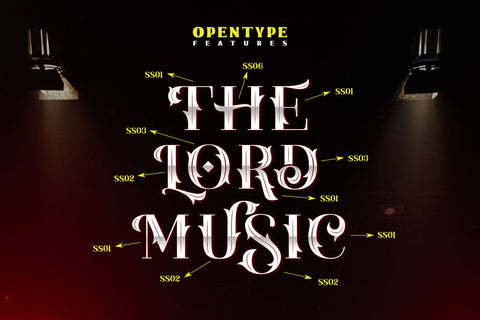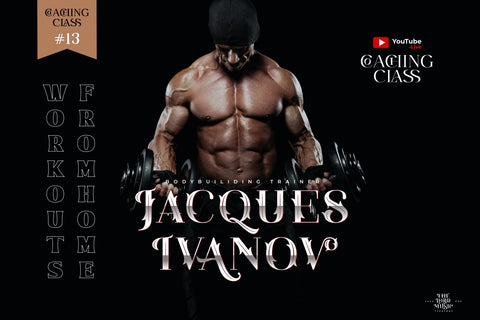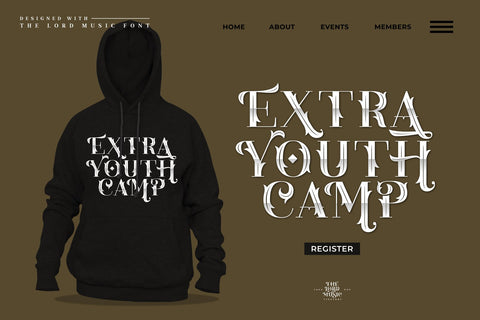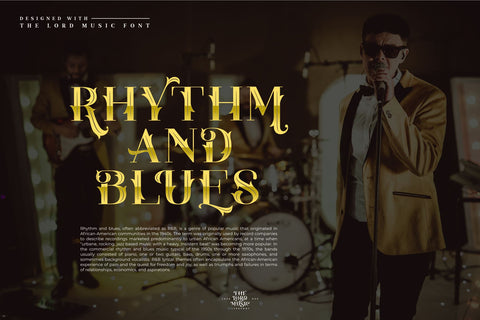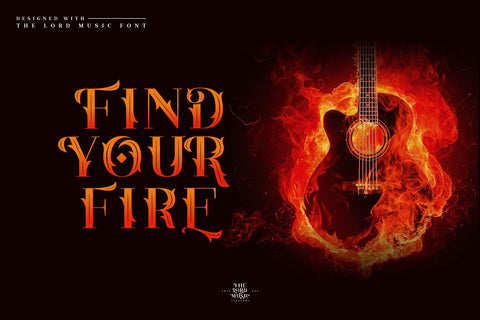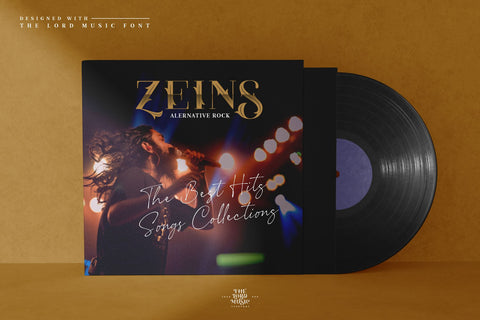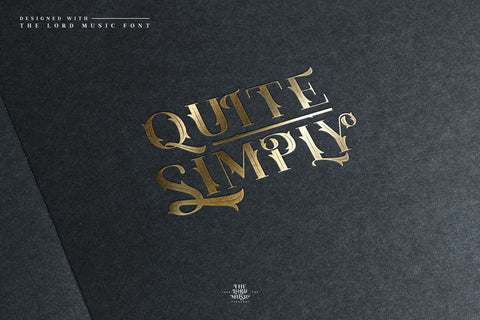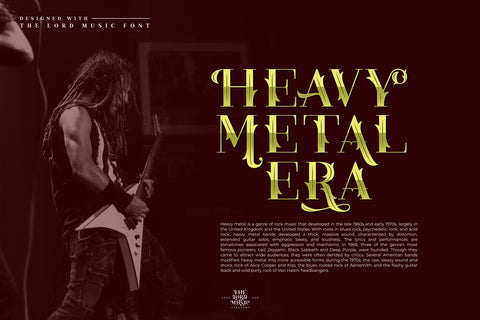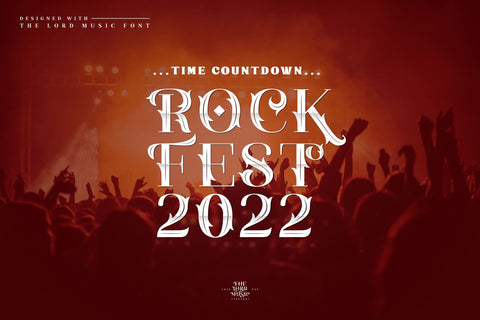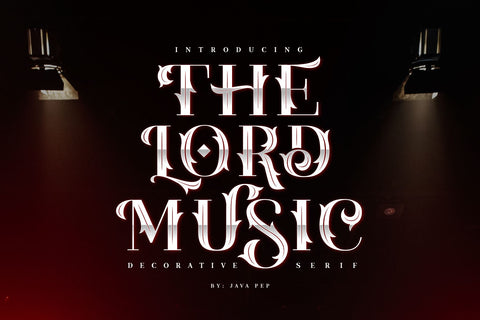
The Lord Music - Decorative font
Introducing, proudly present the newest and fresh product from the oven. The Lord Music font is a decorative serif font made with collaborating of beauty and elegant looks. This font made with a lot of alternate features that every letter has a minimal 3 alternates for change and mix with your style do you want. This font will to giving more valuable projects that outstanding and elegant. The Lord Music font is perfect for a title, headline, logo, branding, quote, tagline, and etc. The font also supports more than 20 languages.
- Uppercase, numeral, and punctuations
- Opentype features